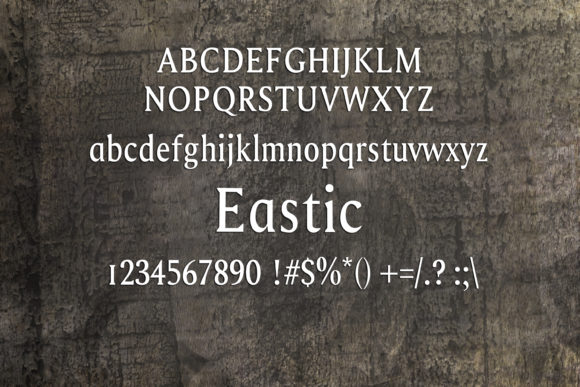
The Eastic Font: A Timeless Classic with a Twist
I still remember the design project that led me to discover the Eastic font. I was working on a vintage-inspired branding campaign for a craft brewery, and I needed a font that would evoke a sense of nostalgia and sophistication. After hours of scouring font libraries and testing various typefaces, I stumbled upon Eastic – a classic serif font with a unique style that instantly captured the essence of the brand.
An Honest Review of Eastic
So, what makes Eastic special? Here are some things I love about this font:
- ✨ Classic serif charm: Eastic boasts traditional serif proportions with a subtle elegance that works beautifully for body text, headings, and titles.
- ✅ Unique personality: The font’s distinctive character comes from its slightly condensed letterforms, giving it a sense of refinement and poise.
- 💡 Versatility: Eastic is suitable for a wide range of design applications, from luxury branding and advertising to packaging and editorial design.
Of course, no font is perfect, and Eastic has a few minor quirks:
- 🤔 Limited language support: Eastic primarily supports Latin-based languages, which might limit its use for projects requiring extensive multilingual support.
- ⚠️ Some glyphs may require manual adjustment: Depending on the context, certain glyph combinations might need tweaking to achieve optimal spacing and readability.
Exploring Eastic’s OpenType Features
Eastic offers a range of OpenType features, including:
- Stylistic alternates: Eastic provides alternative glyphs for certain characters, allowing you to customize the font’s appearance.
- Glyphs and ligatures: The font includes a range of glyphs and ligatures to enhance typographic control.
The Story Behind Eastic
Eastic’s design inspiration comes from the rich typographic traditions of the past. Its creator, a talented type designer, sought to craft a font that would blend classic elegance with a unique twist. The result is a timeless typeface that works beautifully in a variety of design contexts.
| Is Eastic suitable for body text? | Yes, Eastic works well for body text, particularly in larger font sizes (12pt and above). |